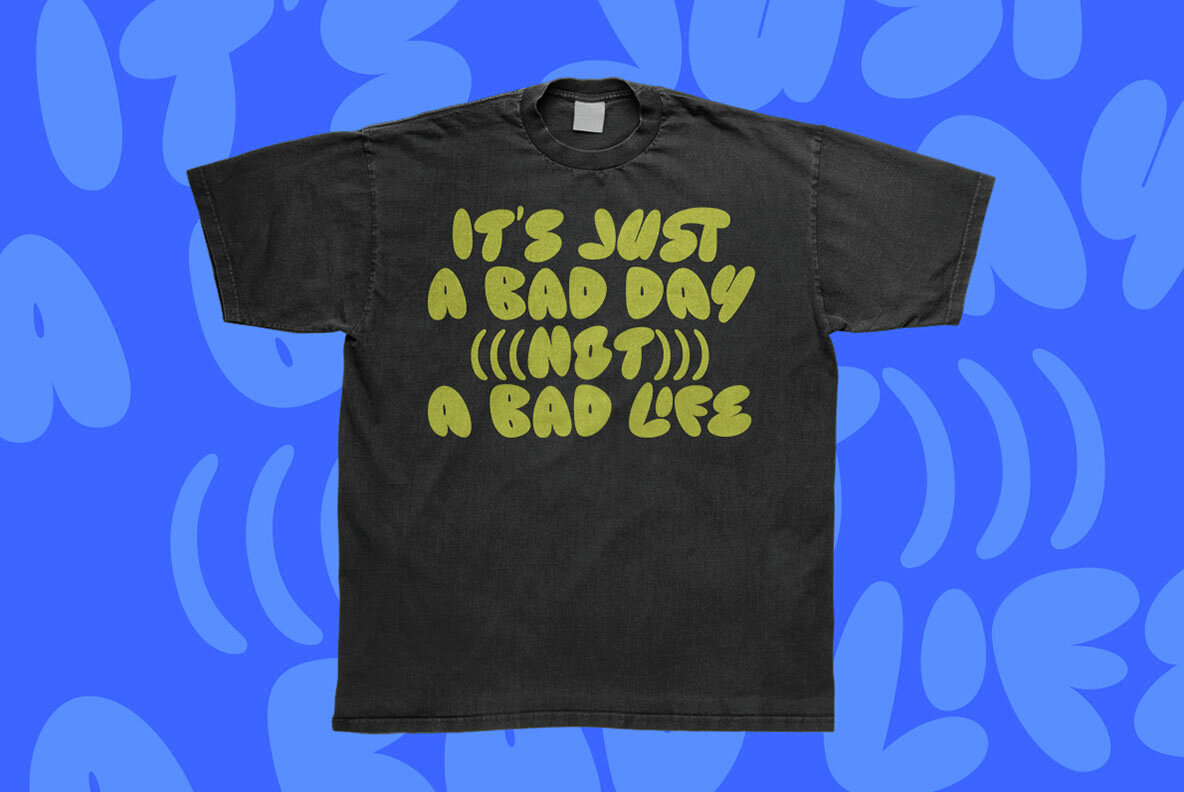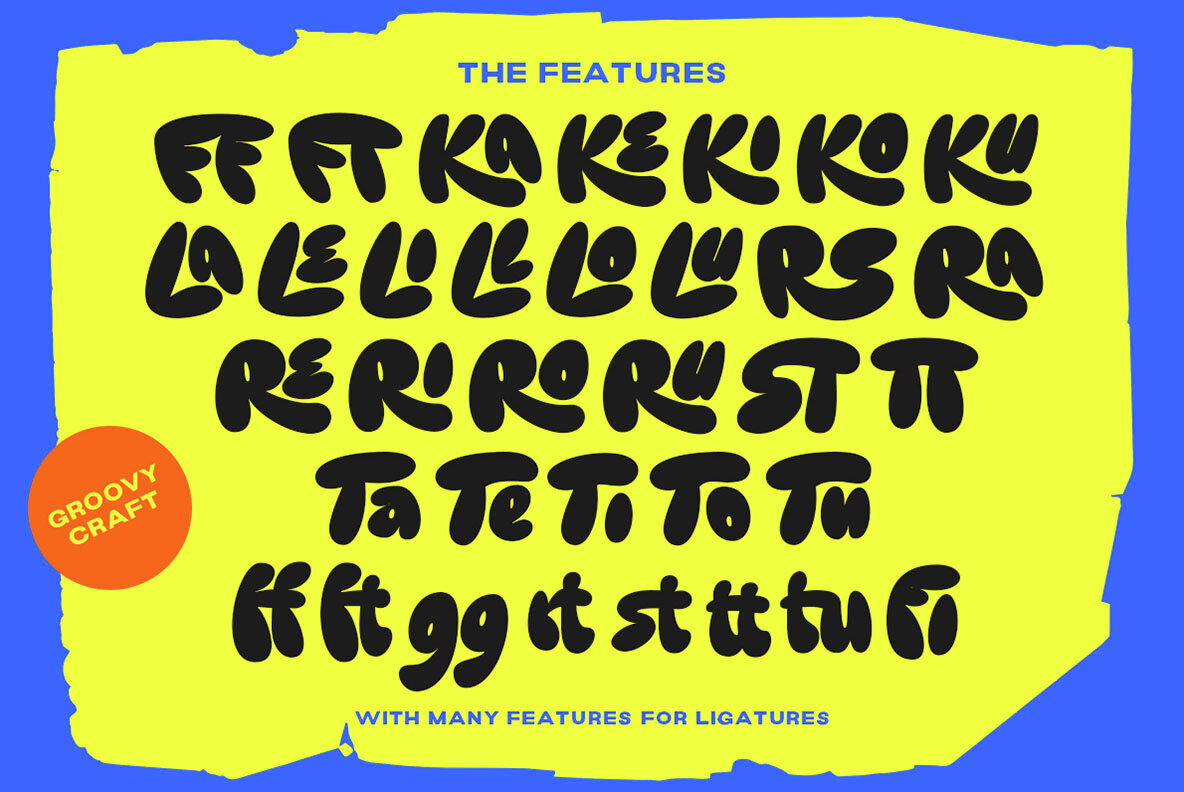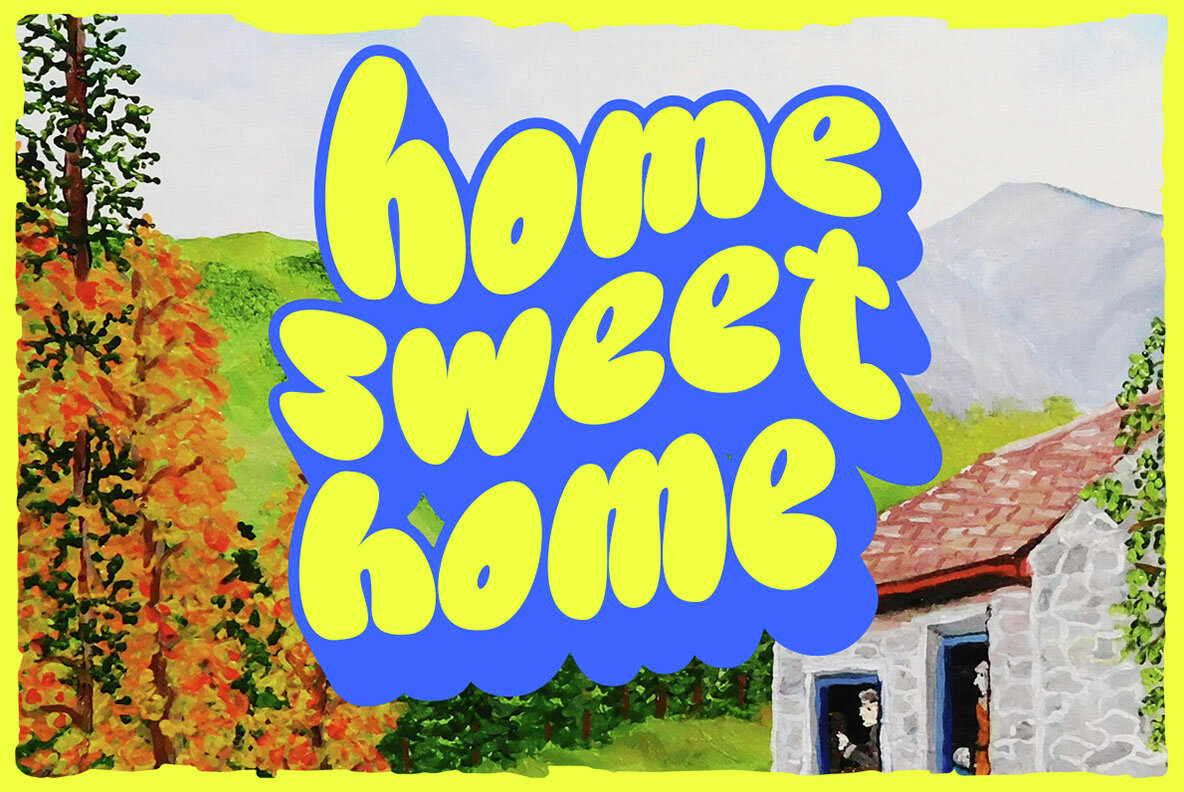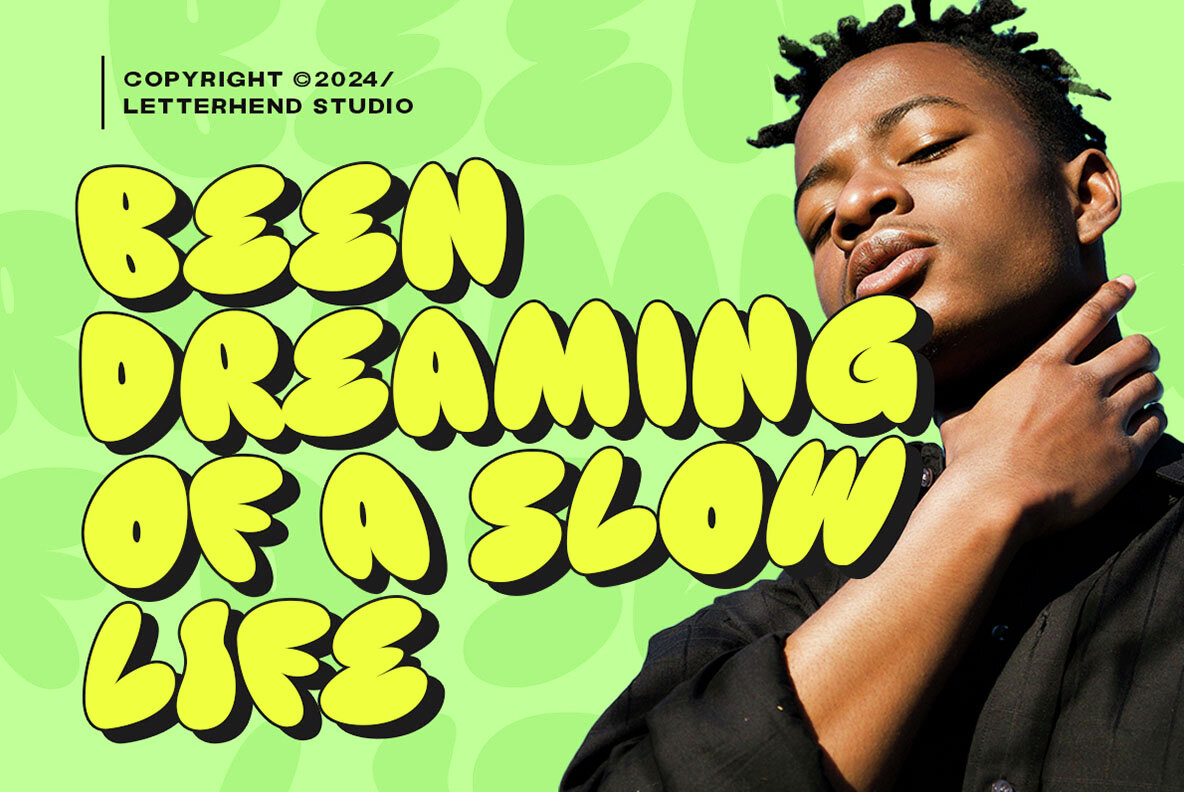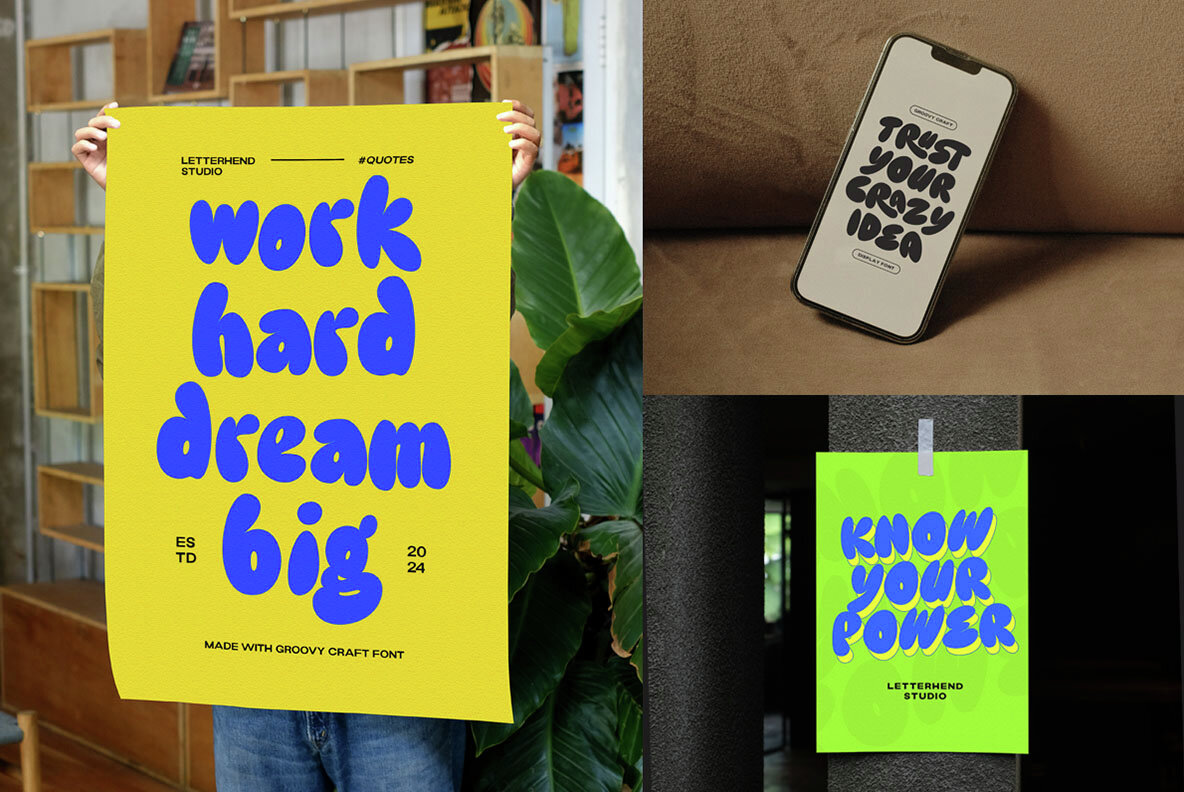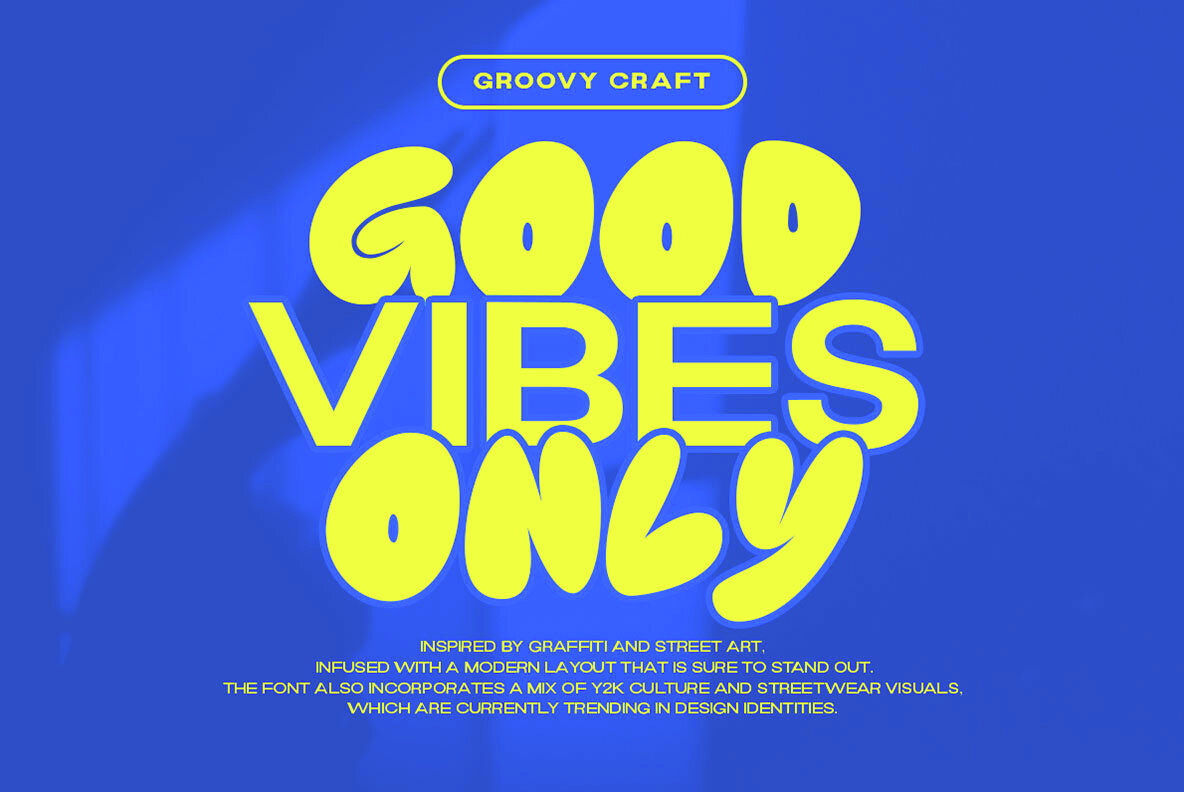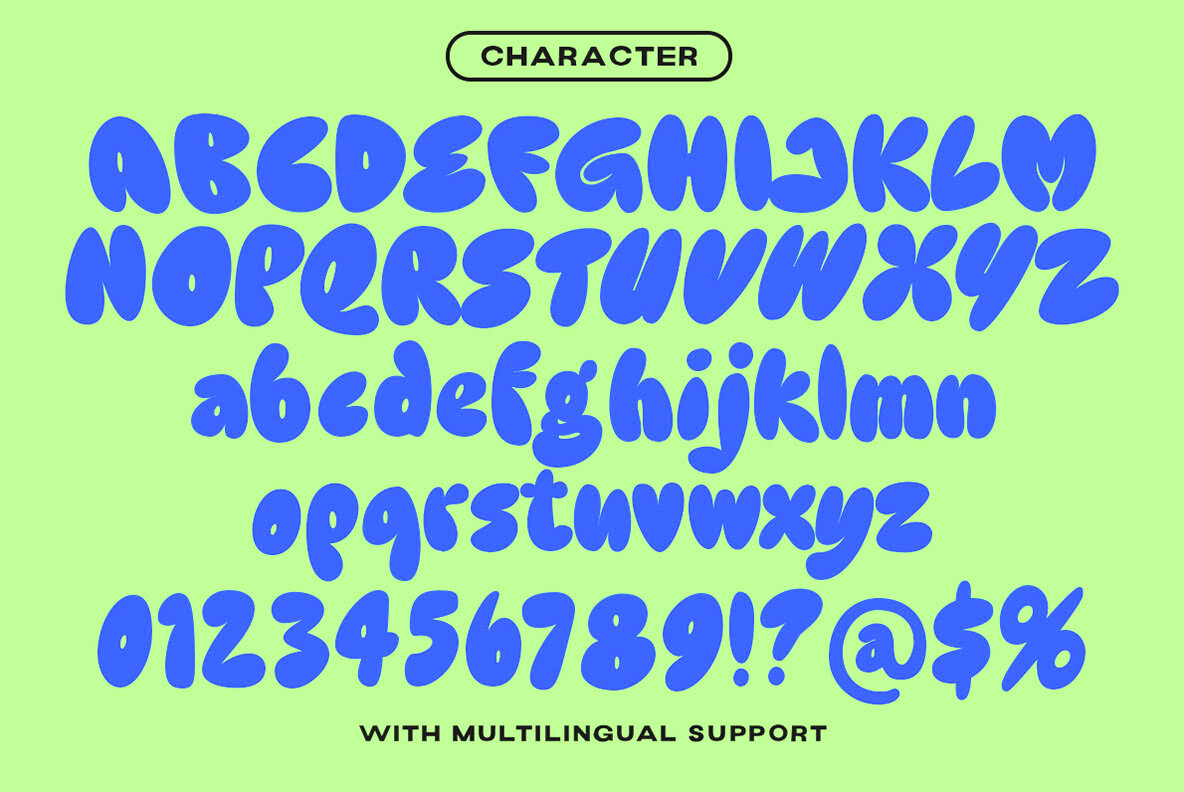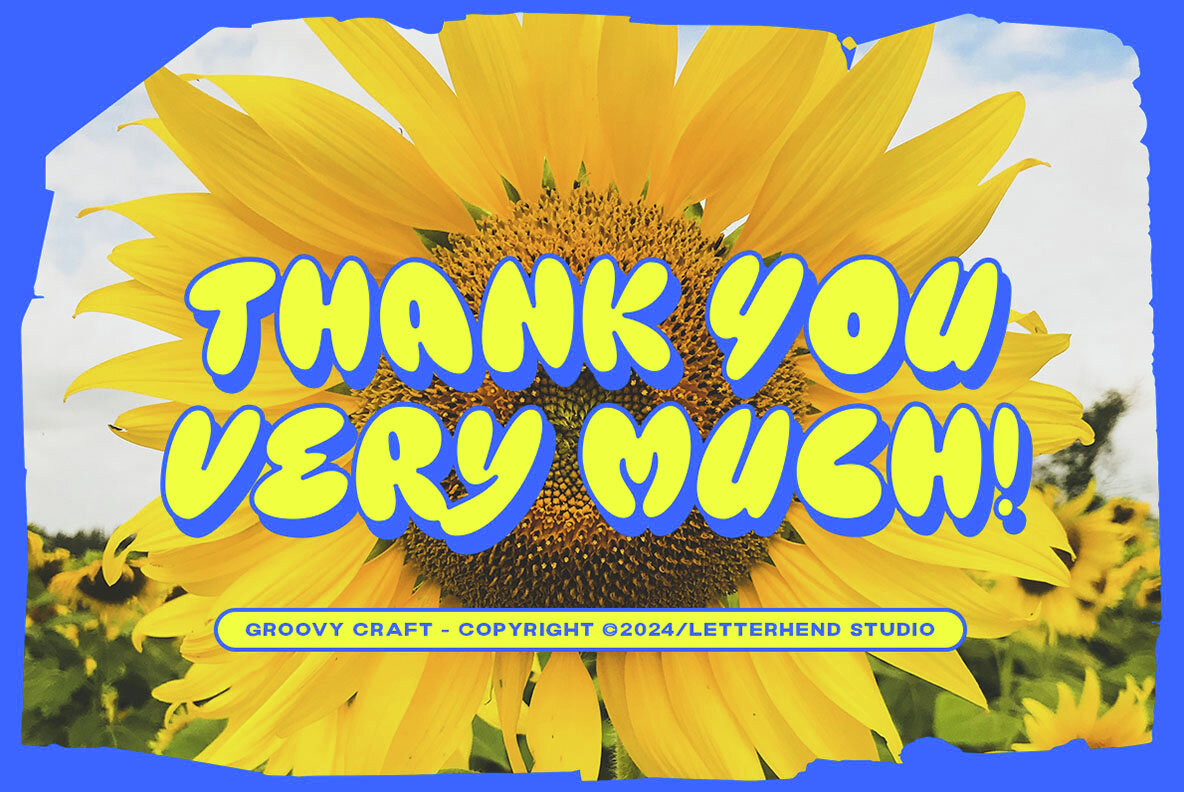
Groovy Craft Font
Groovy Craft is a funny display font with bubble letterform. This font will bring you back to a retro feel. This font is perfectly made to be applied especially in logos, and the other various formal forms such as invitations, labels, logos, magazines, books, greeting / wedding cards, packaging, fashion, make up, stationery, novels, labels or any type of advertising purpose.
Features:
• Uppercase & lowercase
• Numbers and punctuation
• Alternates & Ligatures
• Multilingual Support